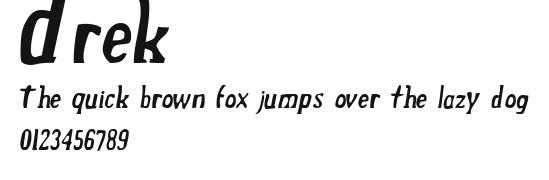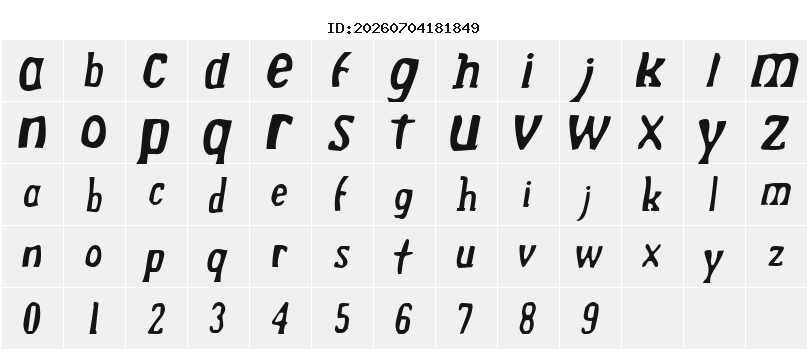
Drek Preview
• Font Name: Drek
• Font Style: NormalItalic
• Font ID: Drek
• Full Font Name: Drek NormalItalic
• PostScript Name: DrekNormalItalic
Drek.ttf is a modern, elegant sans-serif font designed for ultimate readability and visual harmony. Perfect for branding, headlines, web design, and print materials.